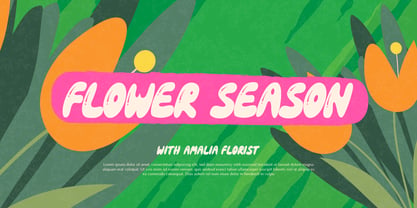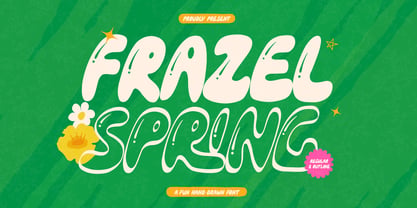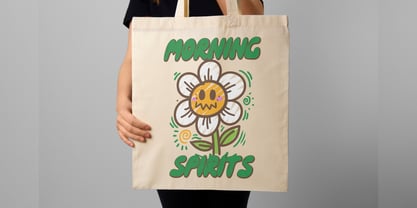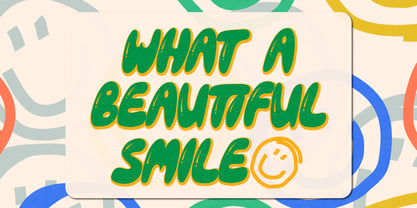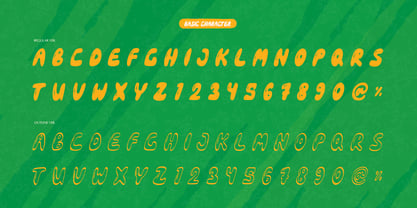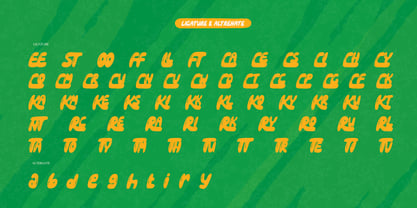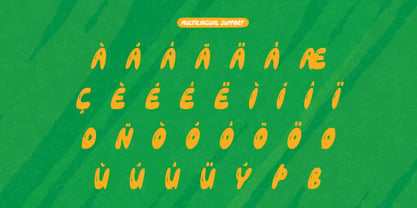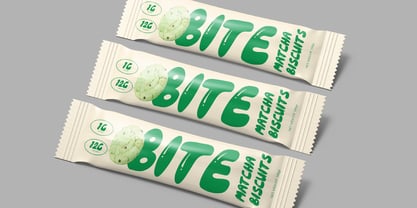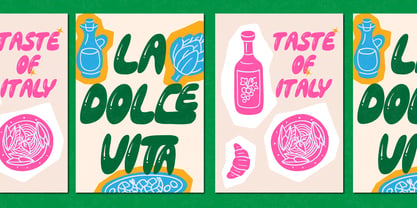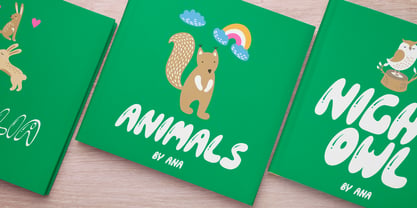
Frazel Spring
by Tini Fitriani
The Frazel Spring Font Family was designed by and published by Tini Fitriani. Frazel Spring contains 1 styles. More about this family
Frazel Spring | Fun Hand Drawn Font, from Gracetypestudio, suitable for any projects such as: logos, branding projects, homeware designs, product packaging, mugs, quotes, posters, shopping bags, t-shirts, book covers, name card, invitation cards, greeting cards, label, photography, watermark, special events, and all your other lovely projects that need a Fun Hand Drawn Font taste
• Regular and Italic
• Standard glyphs
• Alternate and Ligature
• Fonts include multilingual support